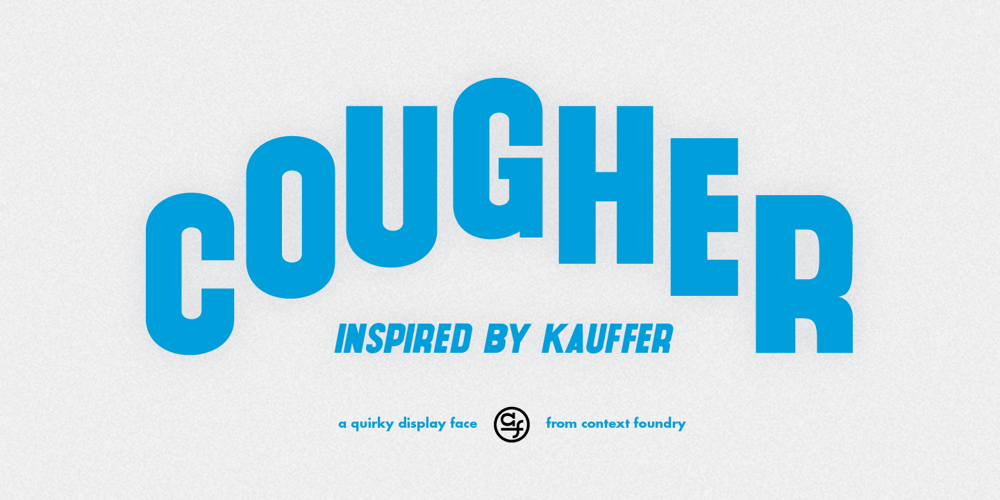
Cougher Font Family was designed by Alex Liebold and published by Context. Cougher contains 4 styles and family package options. A big fat quirky face for big bold weird uses. Inspired by E. McKnight Kauffer and vintage travel posters, both styles have support for multiple languages.